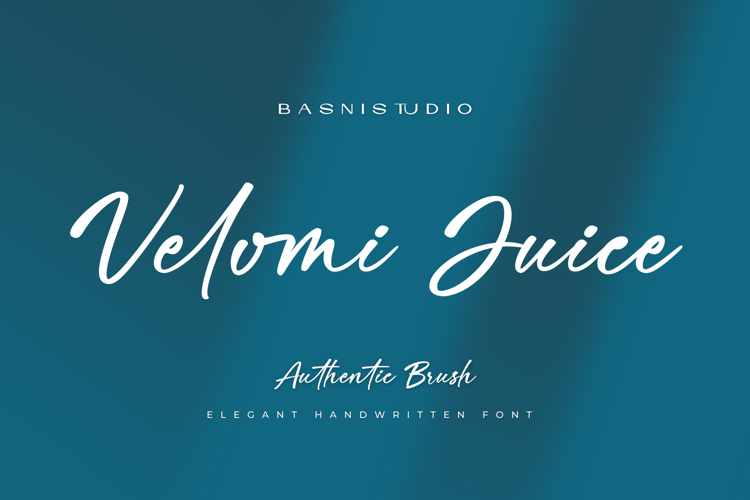
Velomi Juice Font
Velomi Juice Elegant handwritten font crafted with authentic Brush for Natural & Casual touch for everything from branding and social media to invitations and packaging.